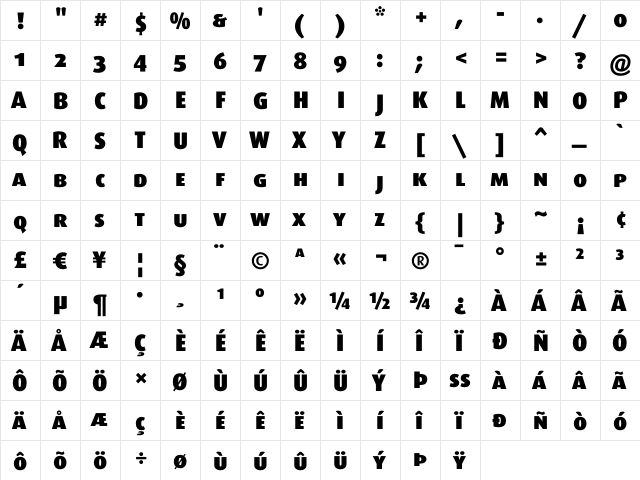
Dax-BlackCaps Regular
Design Context for Dax-BlackCaps Typeface
Dax-BlackCaps takes a measured approach to typography — its balanced proportions and neutral character make it a reliable workhorse for both digital and print work.